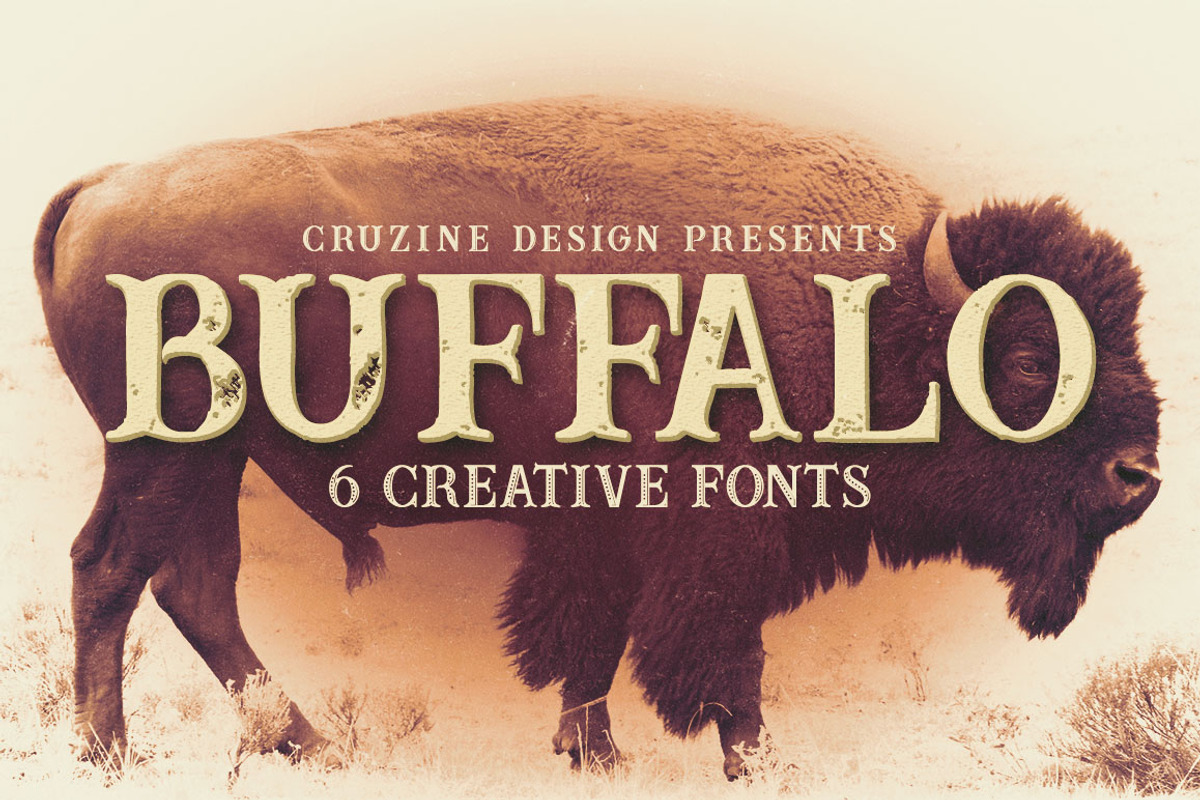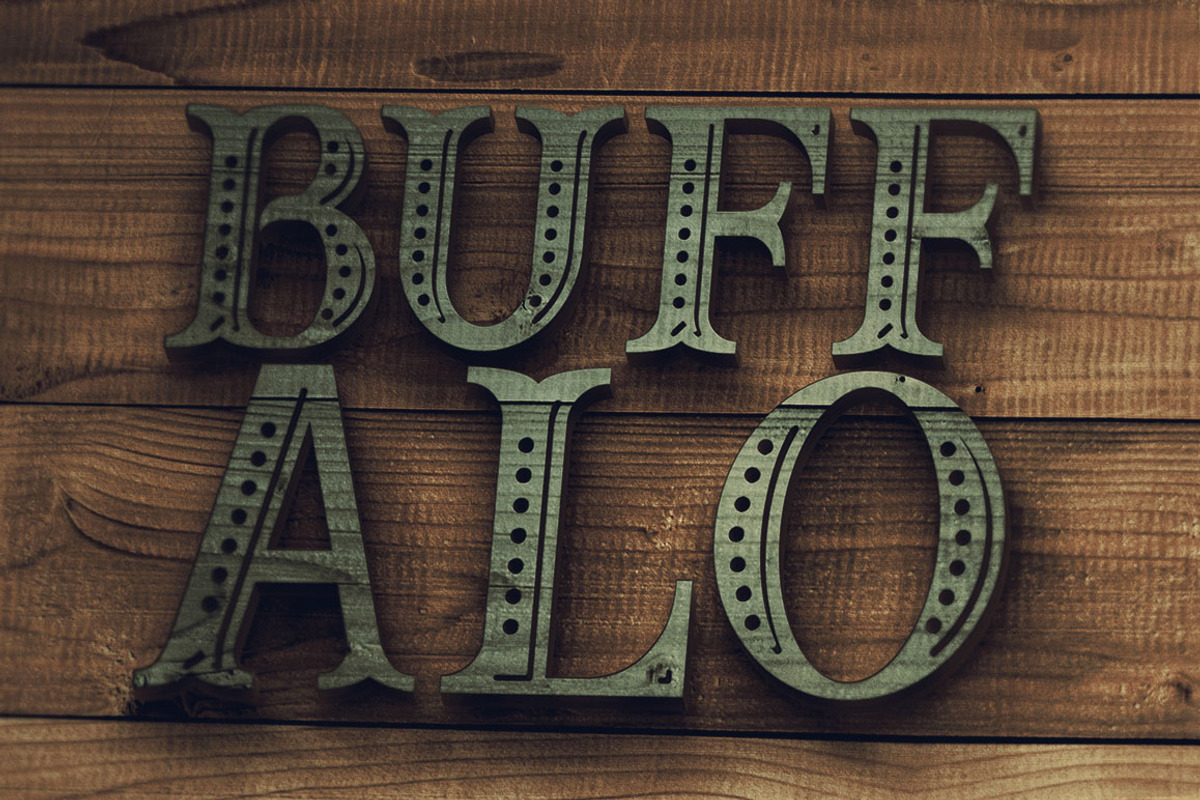
Buffalo Typeface
Retro, vintage or grunge style display font for your new projects. Great for grunge/retro/vintage projects!
Buffalo Typeface by Cruzine fits naturally into Branding, posters, packaging, typography.